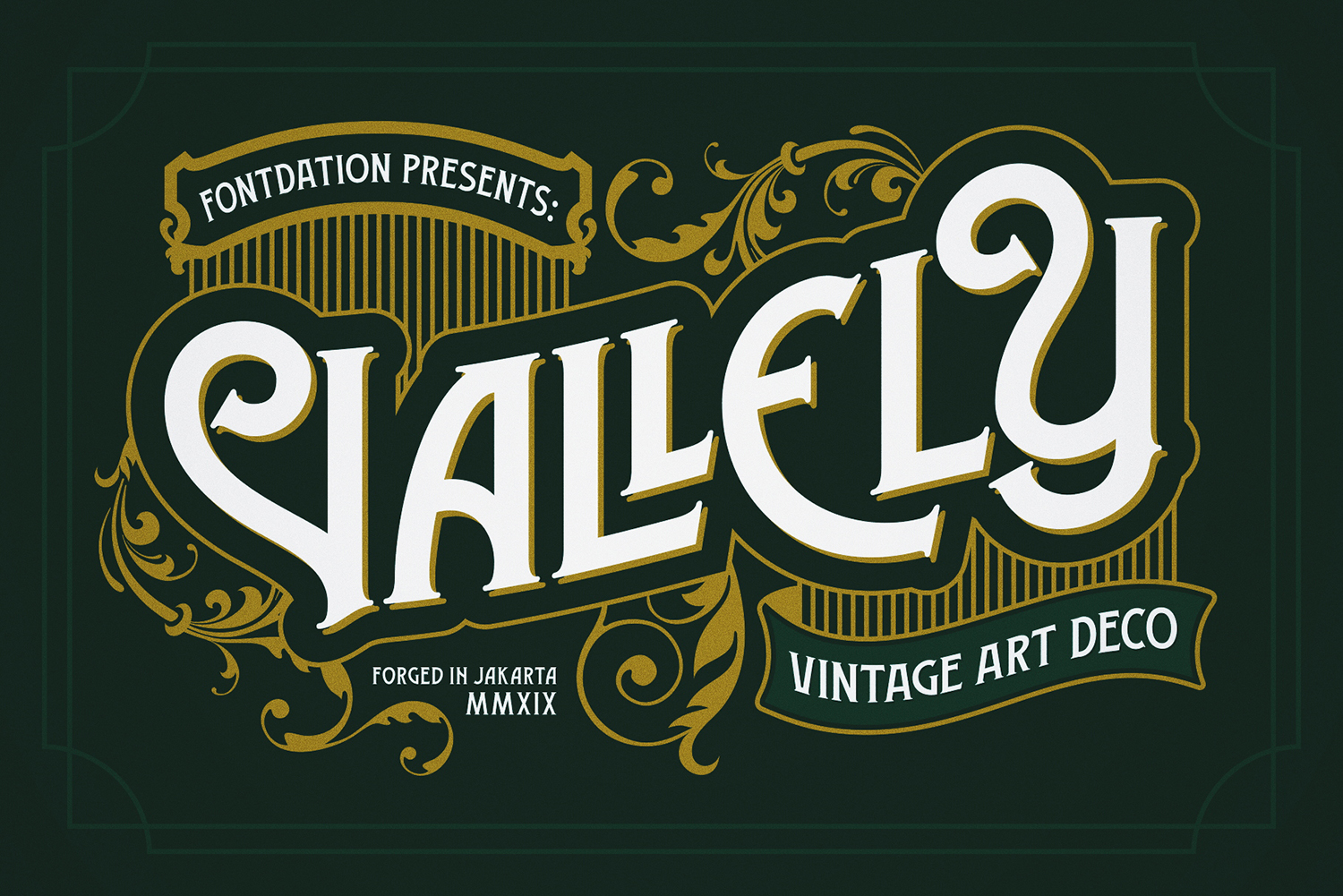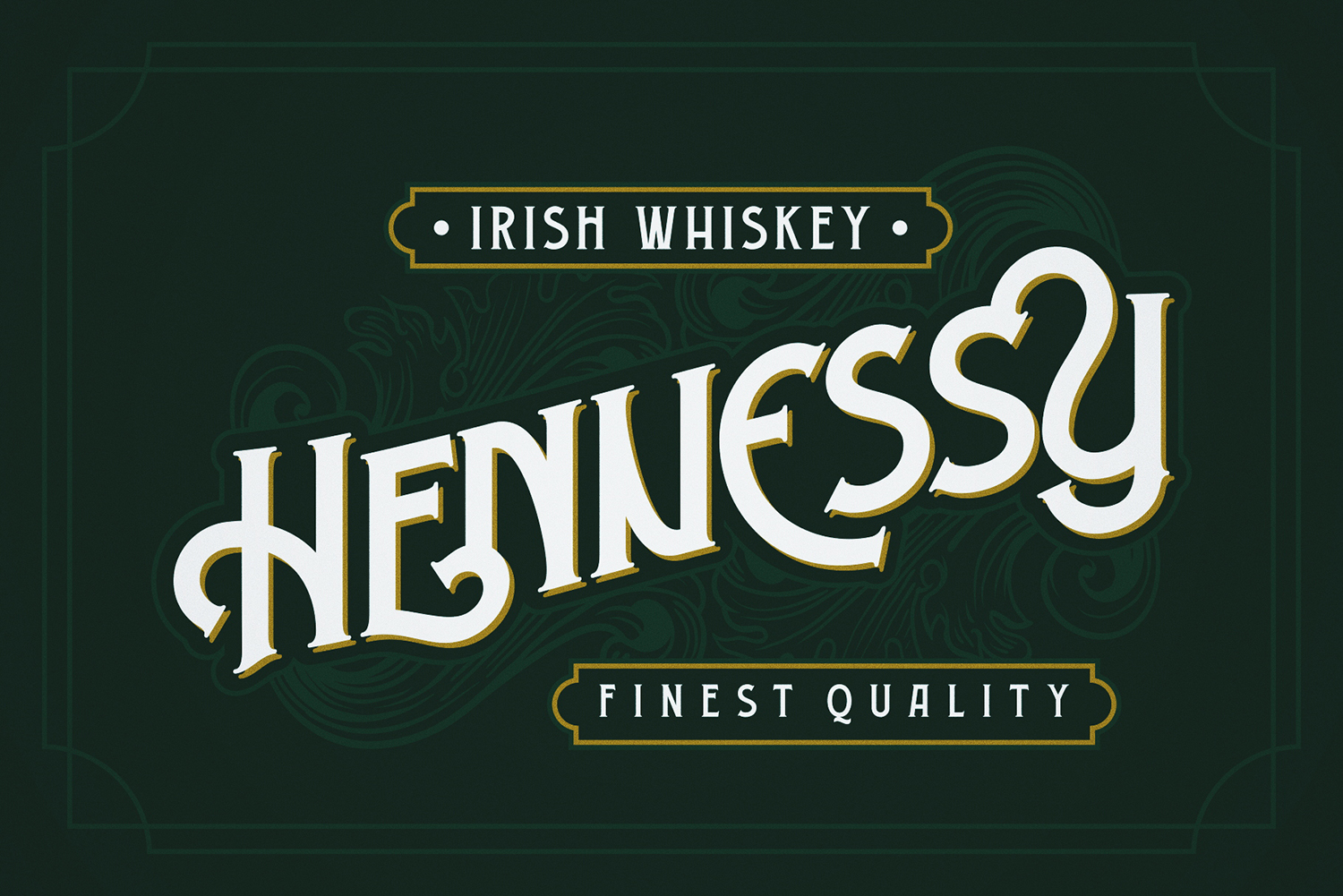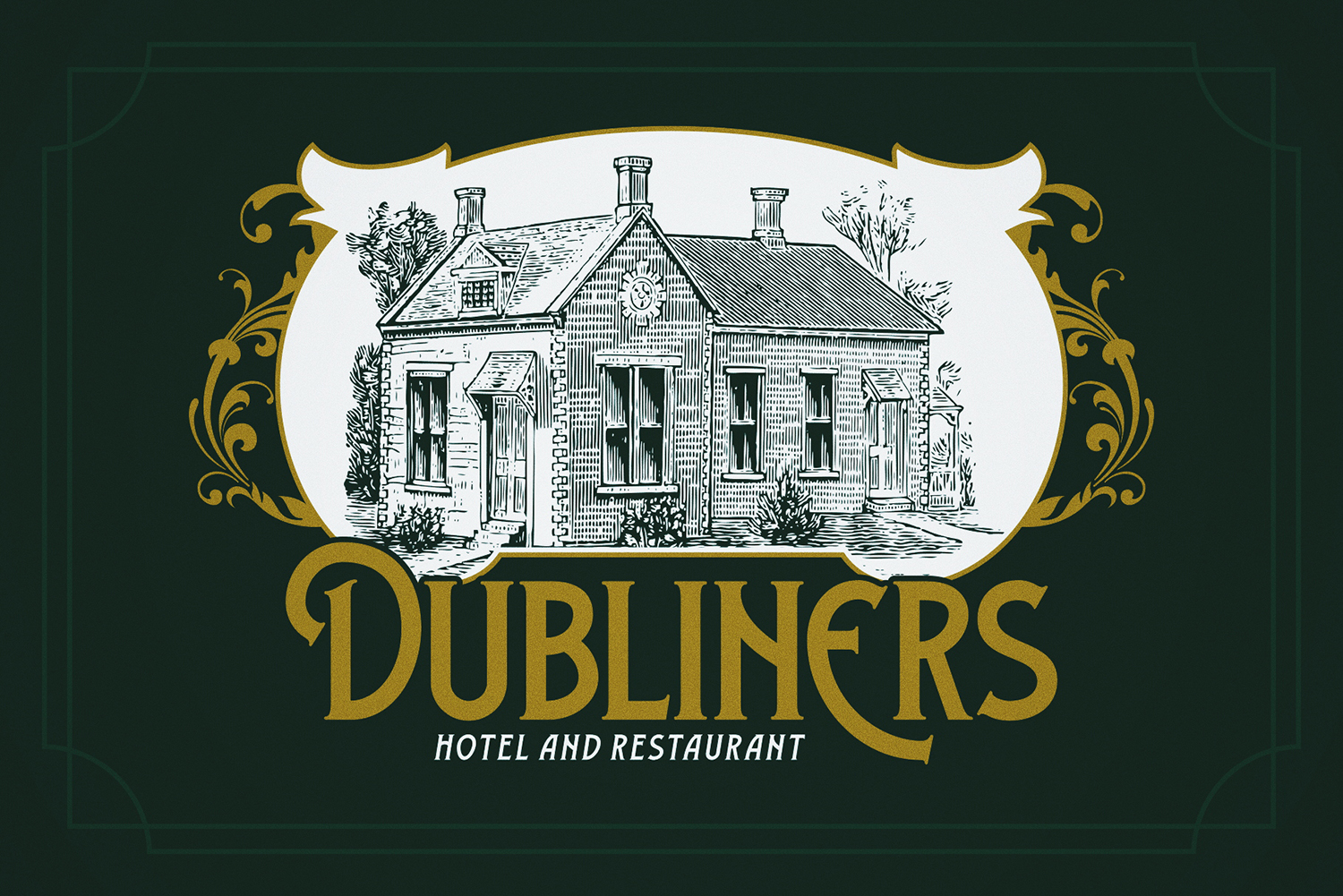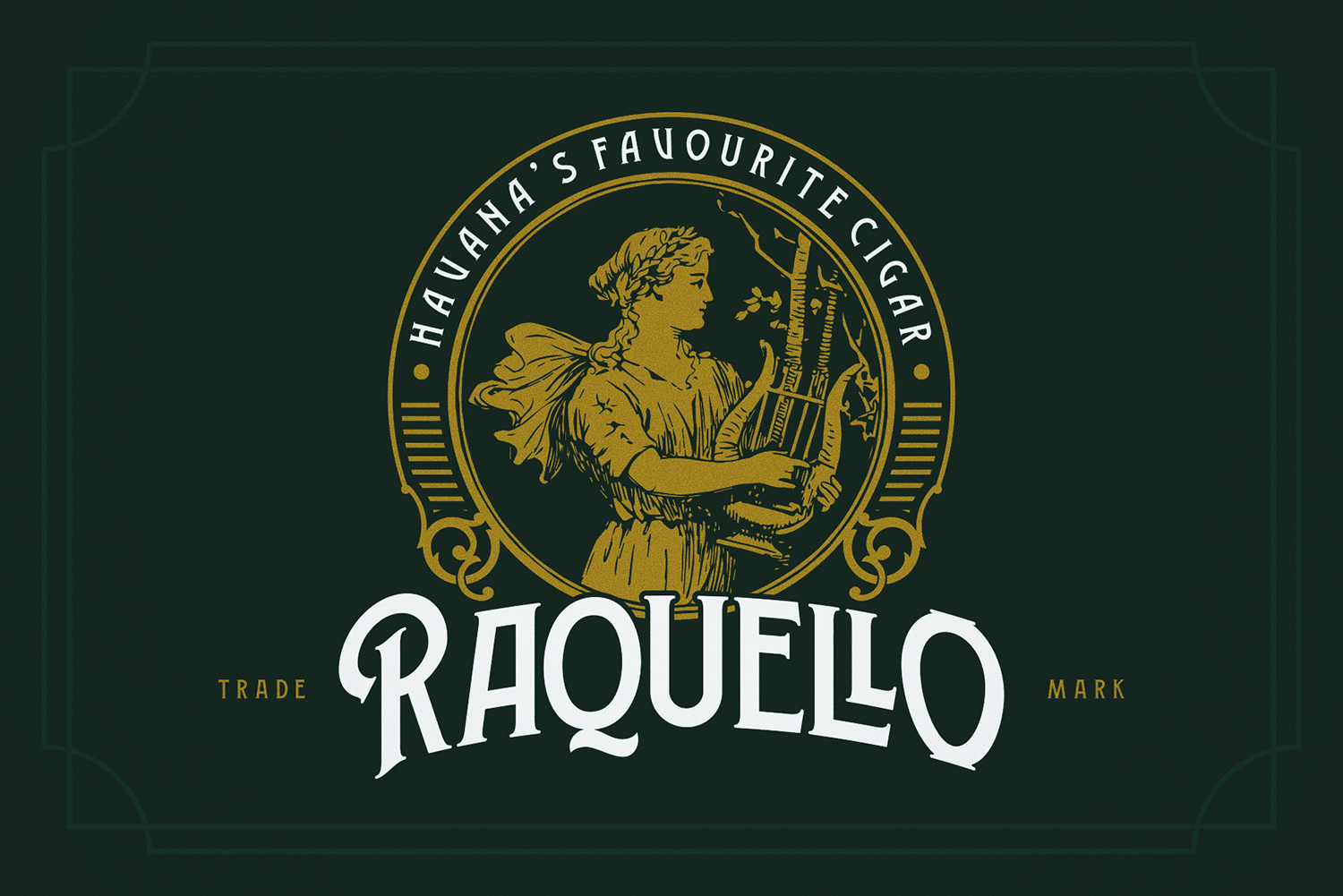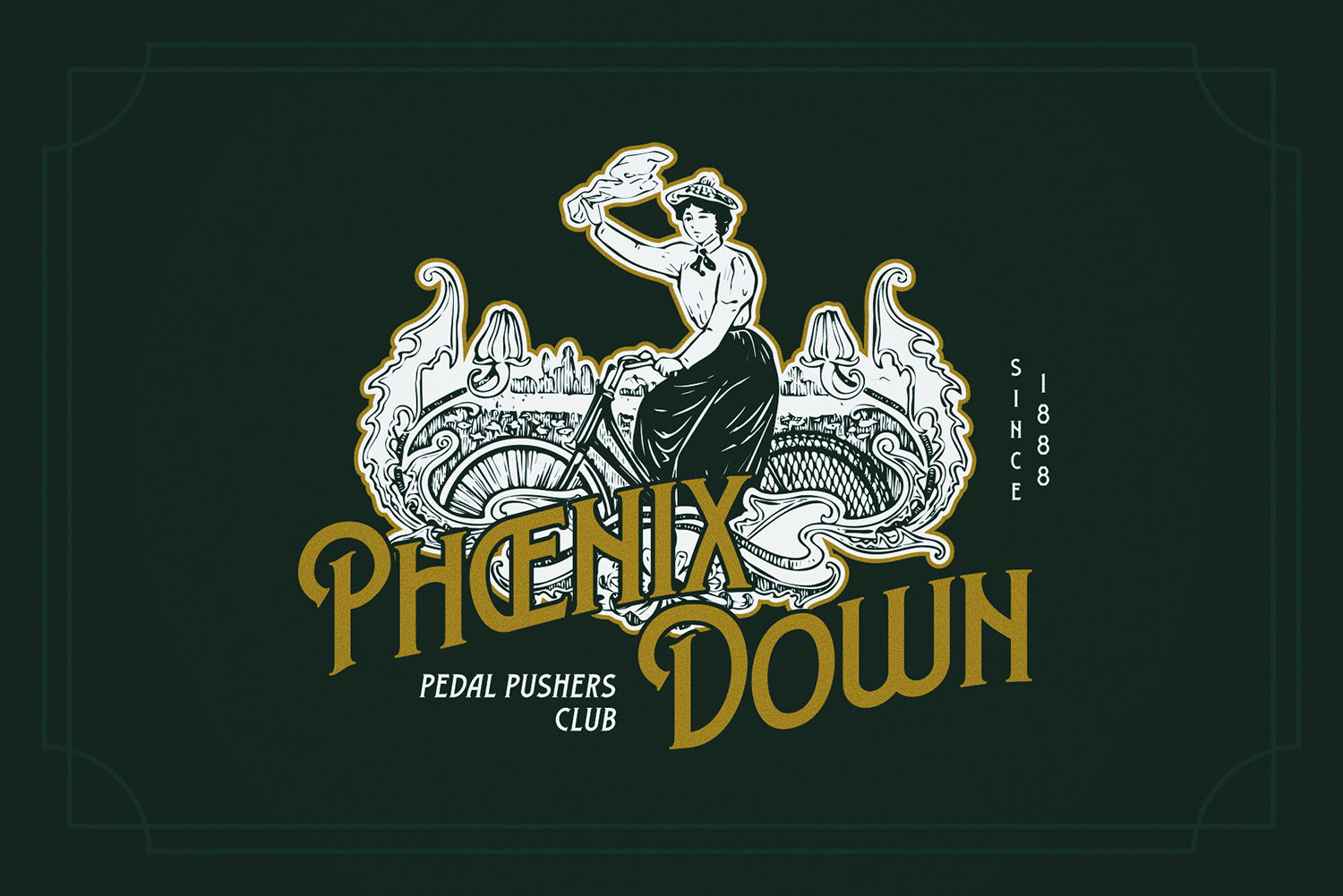
Vallely Free Font
Vallely Free Font is a classic art-deco-ish serif that is inspired by the old typography/letterings used in packaging labels and advertisements. This font is loaded with 300+ glyphs, packed with lots of alternate characters, gives you various letter combinations to play with. If you’re a fan of classic and art-deco ish typography, make sure you add this font to your design toolbox. This free typeface was designed by talented Fahrizal Tawakkal. If you like it don’t forget to check out the full version.